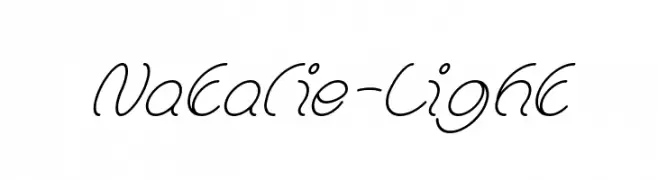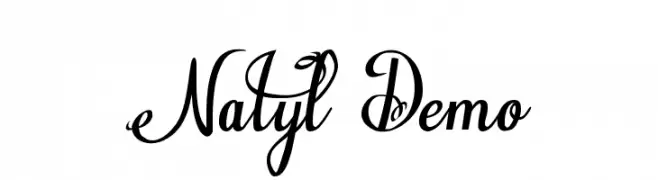
• nano-Inverse
A dot-based, grid-like font with a digital and futuristic style.
• Natalie Bold
A playful, rounded font with a whimsical, hand-drawn style.
• Natalie_Hollow
A playful, hollow font with rounded, smooth curves and a whimsical style.
• Natalie-Light
An elegant and fluid cursive script font with interconnected characters.
• NATURAL WRITING
A bold, brush-style font with a natural, handwritten appearance.
• Natyl Demo
An elegant, decorative script font with intricate swashes and flourishes.
• Nb Obese
• Nb Strange
• NBA EAST
• NBA WEST